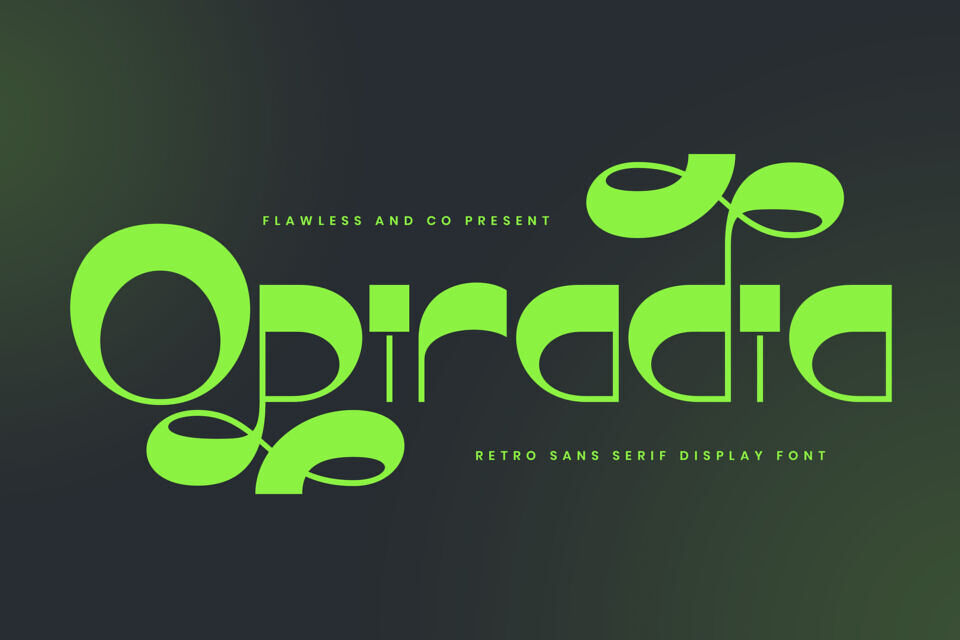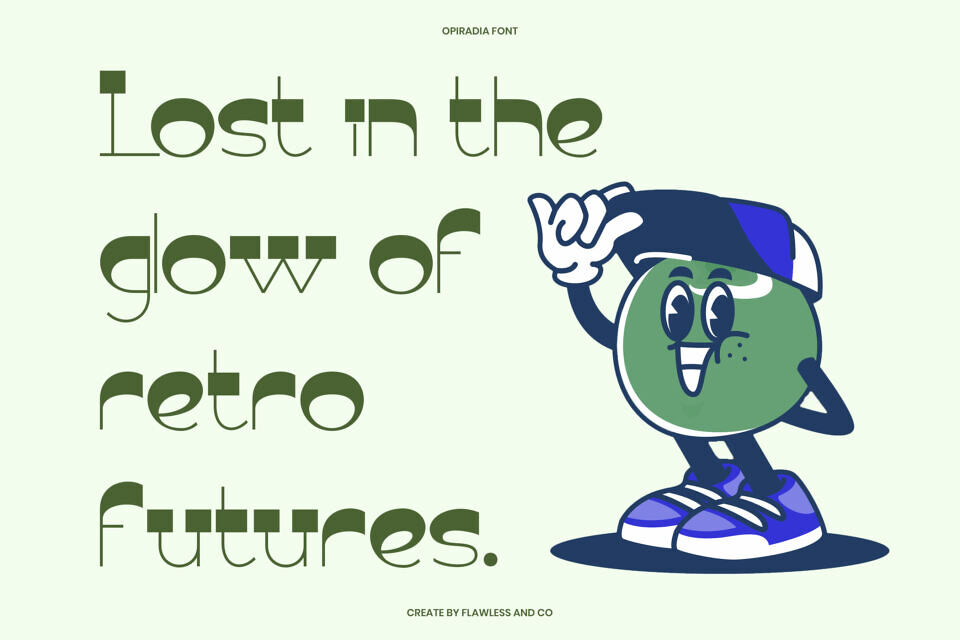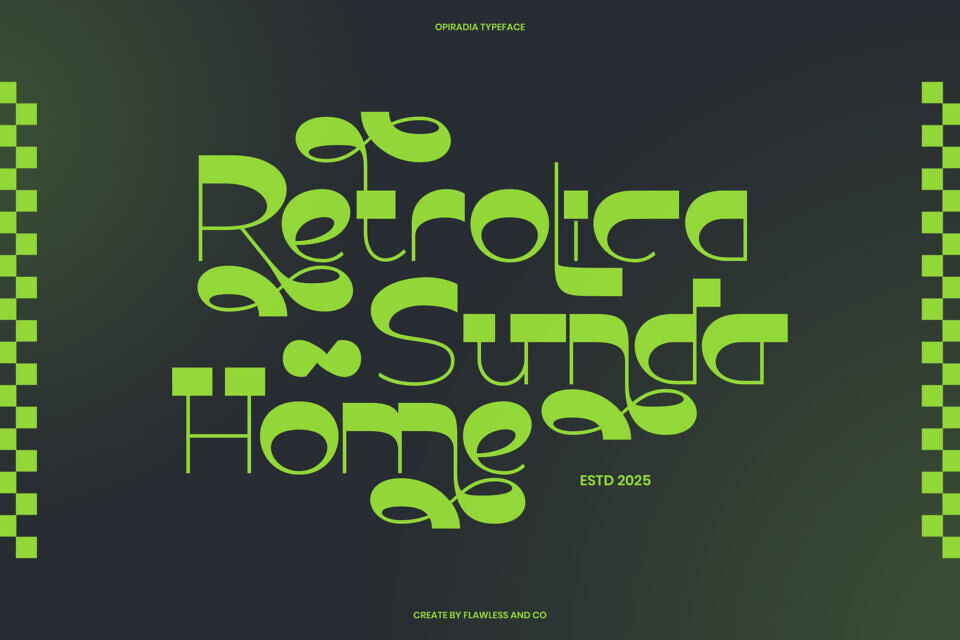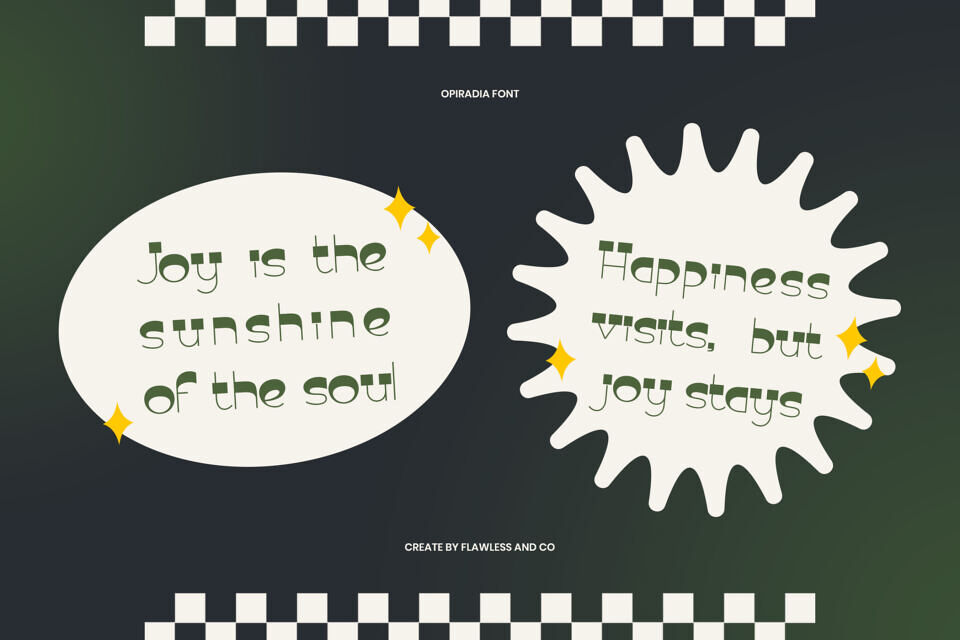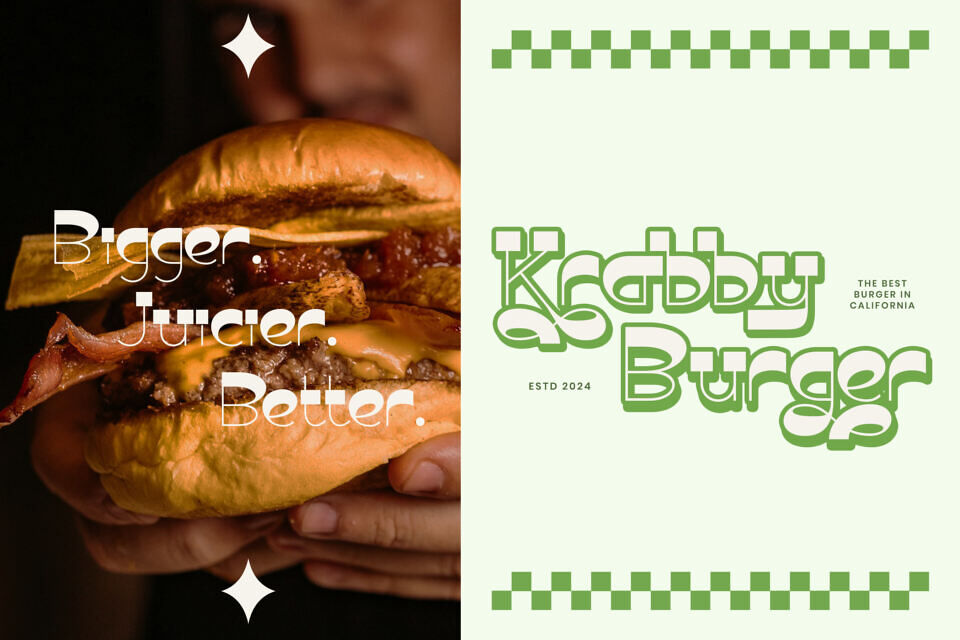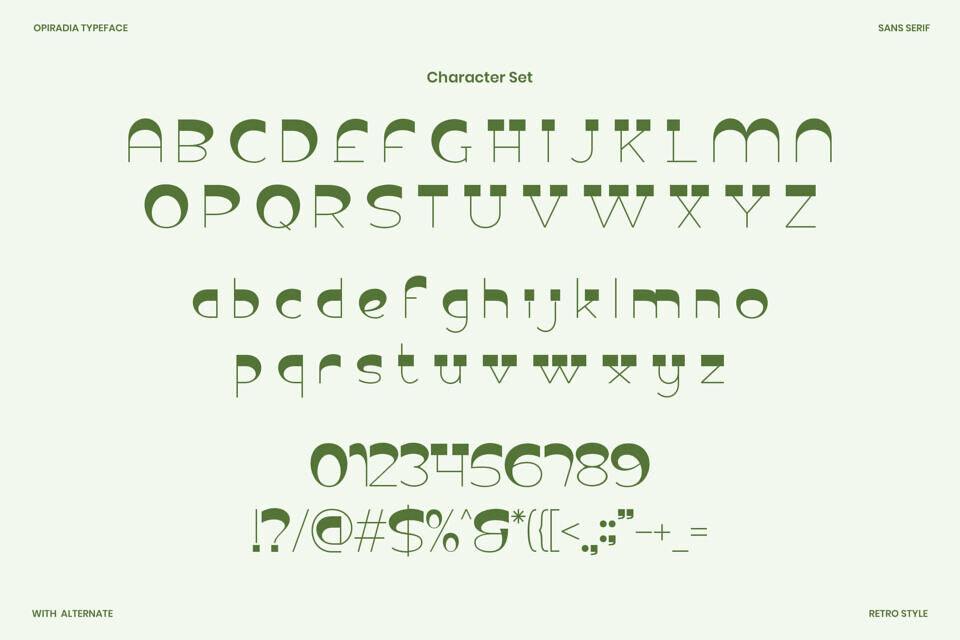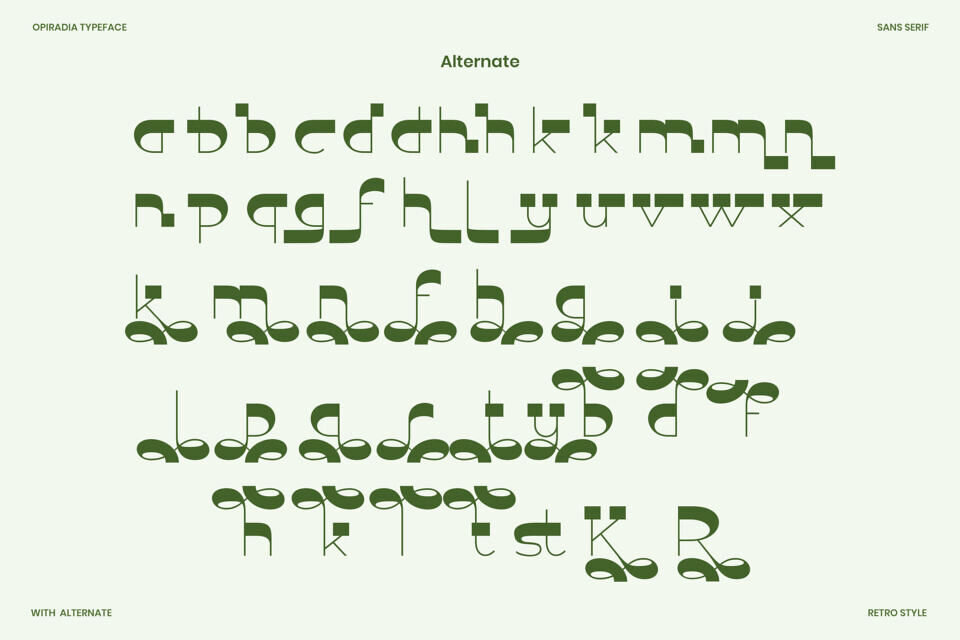
Opiradia Font
OPIRADIA is a retro-inspired sans serif typeface that blends nostalgic flair with modern confidence. With its playful curves, artistic swashes, and geometric balance, OPIRADIA brings a unique personality to logos, food branding, packaging, signage, and creative headlines.
Whether you’re crafting a vintage burger joint identity or a trendy apparel label, OPIRADIA delivers bold expression and visual charm. This display font adds a fresh twist to retro aesthetics, making your designs pop with style and originality.